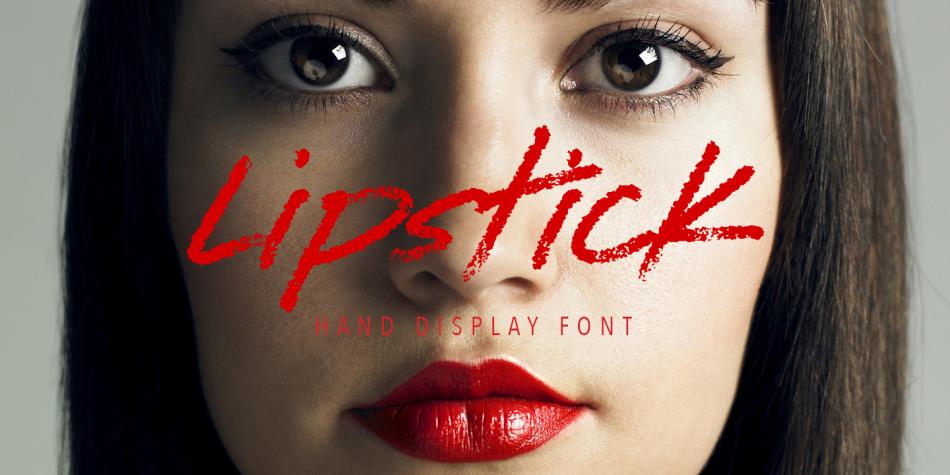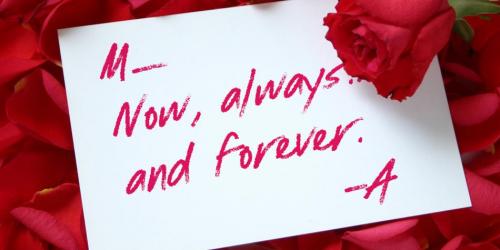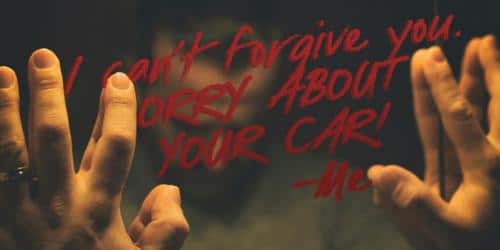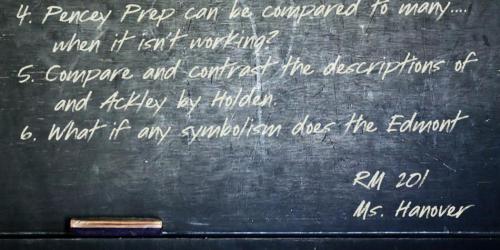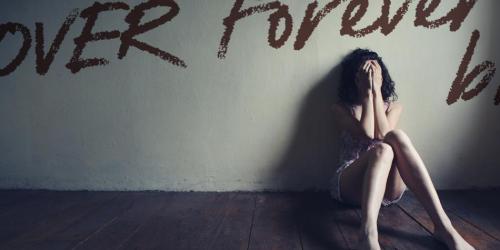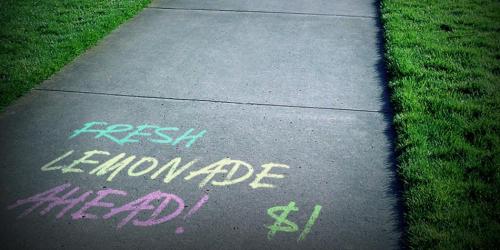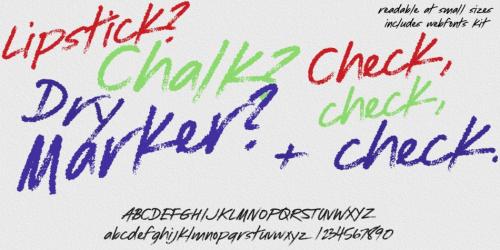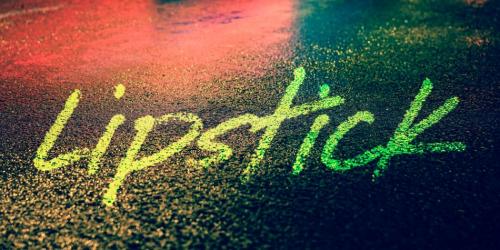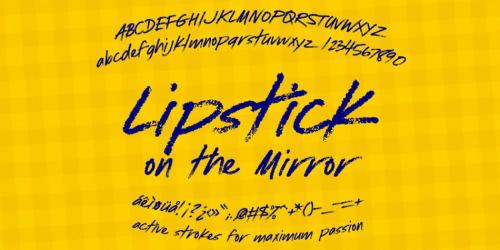
Lipstick On The Mirror Font
Lipstick is crafted to evoke the active strokes of tempestuous love (or hate) letters left on mirrors. Intentional slant inconsistency and varied kerning and length of stroke ensure a highly custom hand-written look, but there is enough technical uniformity to maintain legibility even at small sizes. Although originally designed to resemble lipstick, this typeface also can easily be styled to mimic chalk or crayon.